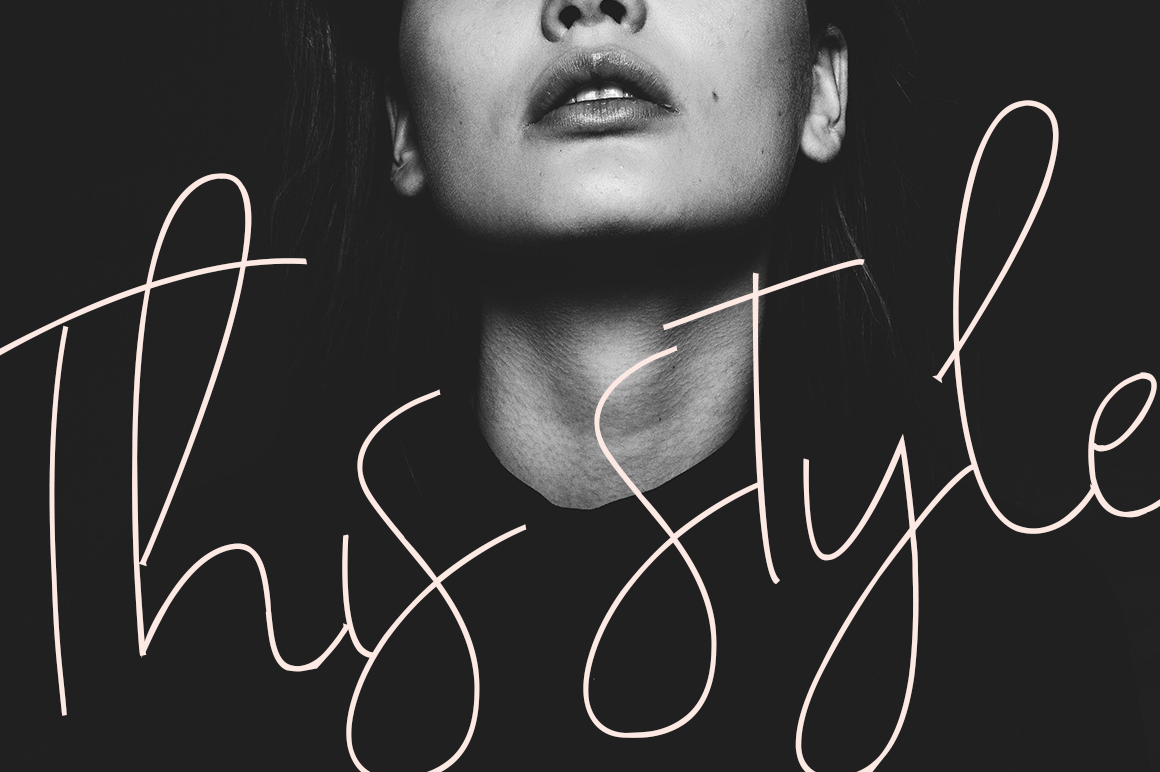
With My Love Script Font
db-ku.com - Script & Handwritten -- Introducing the stunning script font ‘With my love’. Evoking whimsical feelings of love and happiness whilst maintaining a preppy blog style.